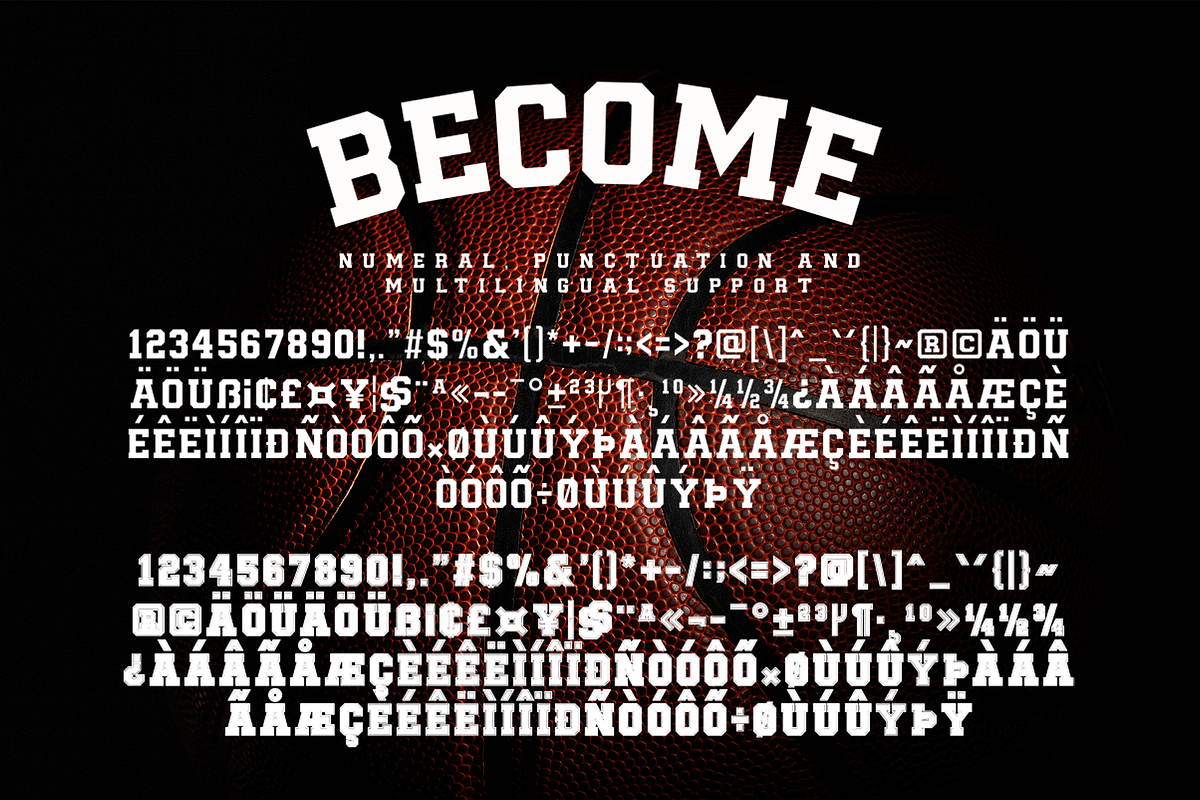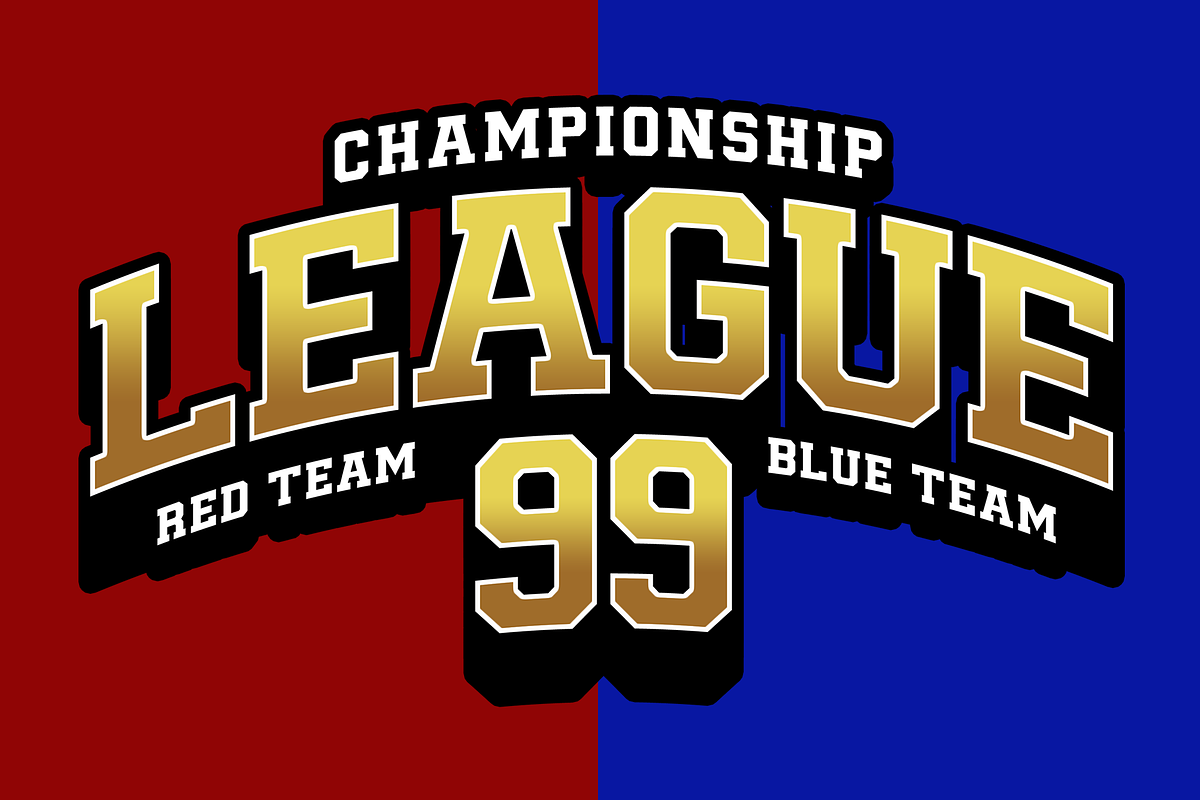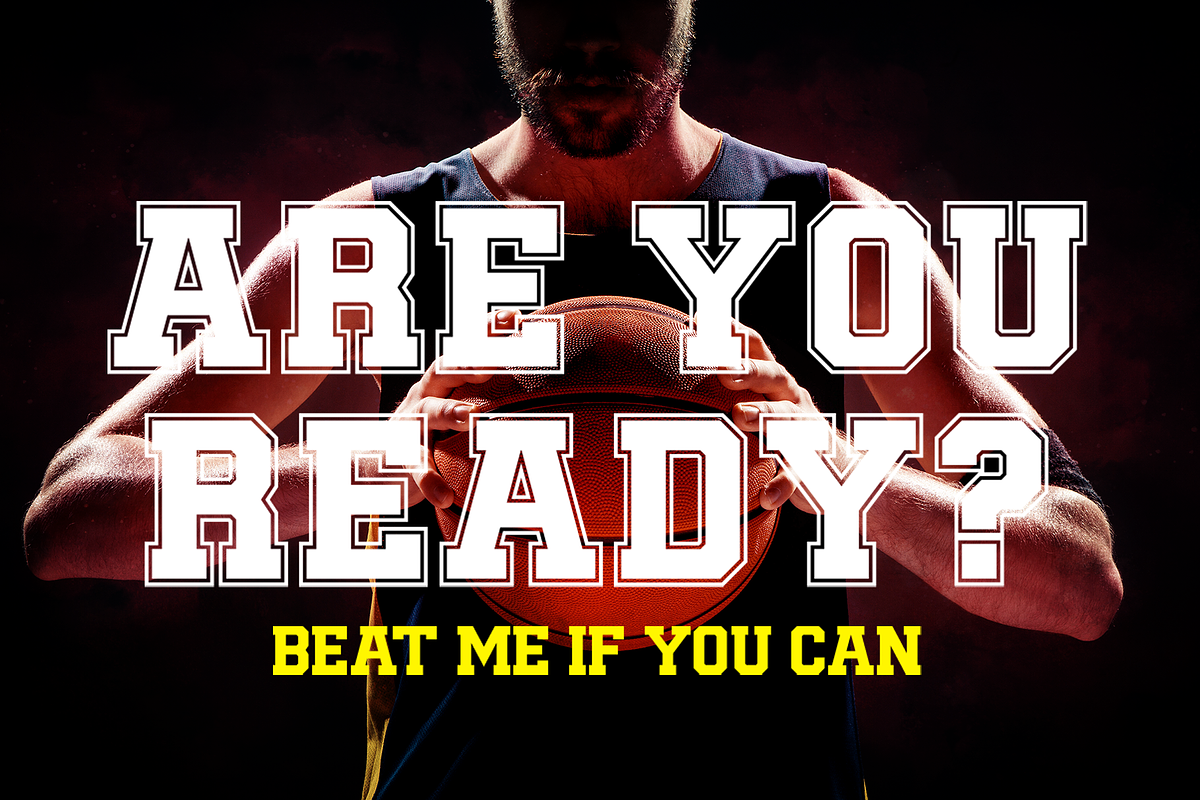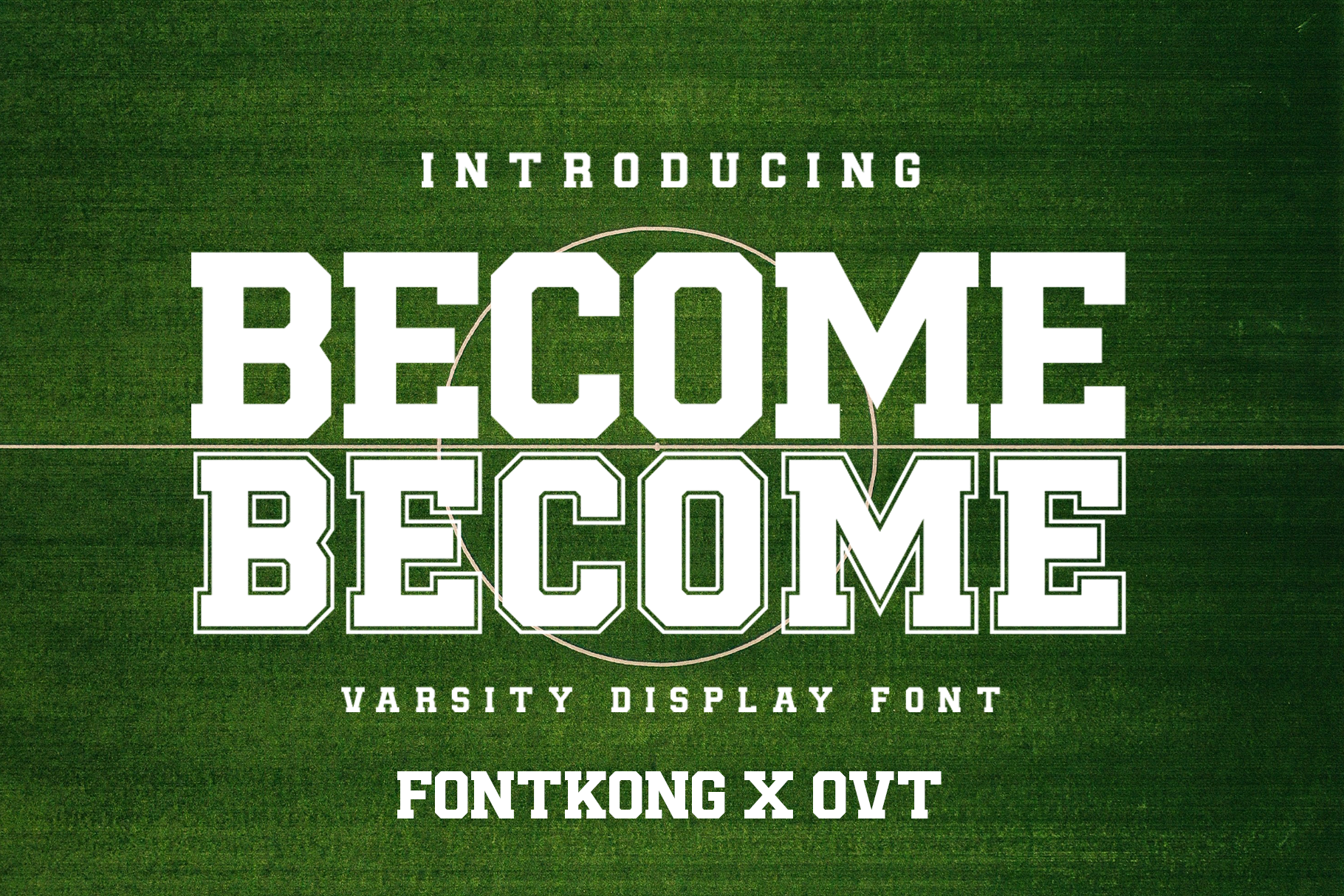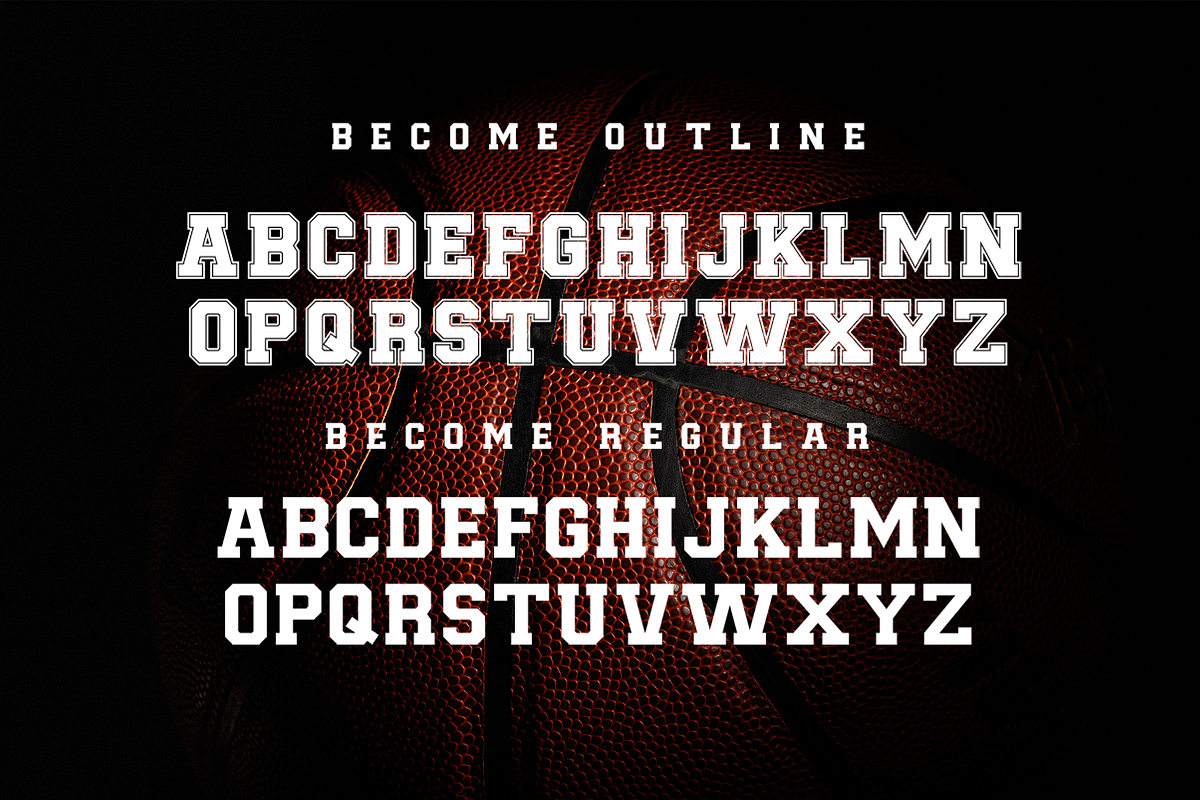
Become - Varsity Display Font
Introducing "Become," a varsity display font that brings the vintage spirit and bold performance of classic athletic lettering to your design projects. Perfect for designers, sports enthusiasts, and creatives looking to evoke a sense of tradition and strength, Become offers a robust and dynamic style that commands attention.
Ideal for sports team logos, event posters, apparel, branding, and school spirit materials, Become's strong lines and collegiate-inspired letterforms provide a nostalgic and authoritative aesthetic. Each character is meticulously crafted to ensure clarity and impact, making your designs resonate with confidence and energy.
The "Become" font includes a complete set of uppercase letters, numbers, punctuation marks, and special characters. This comprehensive set ensures versatility and adaptability across a wide range of design projects, from bold headlines to spirited merchandise.
Capture the essence of varsity pride with Become, the display font that combines vintage charm with bold performance.